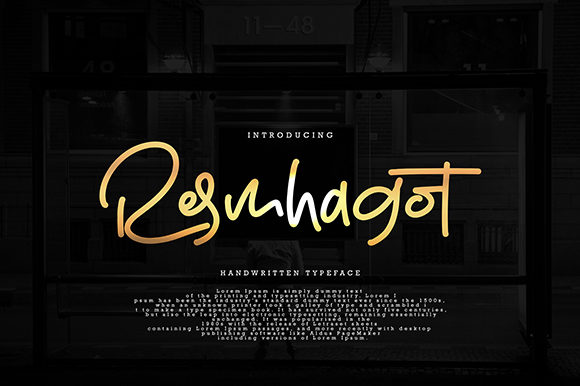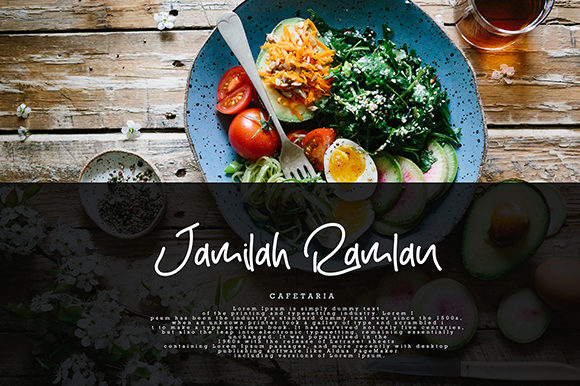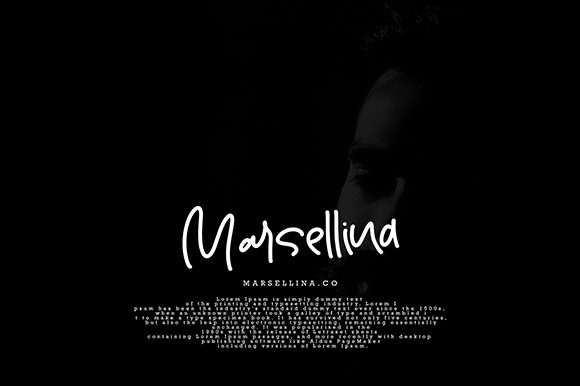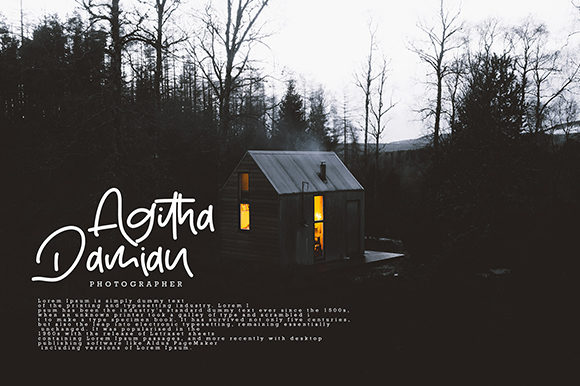
HomeScript FontsResmhagot Font Script Fonts Resmhagot Font FacebookXPinterestWhatsApp Resmhagot Font Poster 2 Resmhagot Font Poster 3 Resmhagot Font Poster 4 Resmhagot Font Poster 5 About Resmhagot Font Resmhagot is a fun and beautiful handwritten font with incredible style. Get inspired by its authentic charm. DOWNLOAD ON CREATIVE FABRICAThis font is sold and delivered by Creative Fabrica. Font Canyon may earn a commission if you buy through this link. People also explored Beautiful Dreamer Font Fivety Miles Font Tecnica Slab Family Font Magoat Font Children Font Malleo Font Magical Feather Font Sigennate Font Chypre 276 0 TagsResmhagot Font Previous articleMy Honey FontNext articleAlfrida Font LEAVE A REPLY Cancel reply Comment: Please enter your comment! Name:* Please enter your name here Email:* You have entered an incorrect email address! Please enter your email address here Website: Save my name, email, and website in this browser for the next time I comment. Personal Use Free Latifah Personal Use Free Read more about this font Mueband Personal Use Free Read more about this font BD Algebra Personal Use Free Read more about this font Authurium Personal Use Free Read more about this font BLOG Modern Sans-Serif Fonts That Brands Love in 2025 In 2025, modern sans-serif fonts remain a top choice for brands looking to project clarity, professionalism, and... Best Fonts for YouTube Videos: Make Your Thumbnails Stand Out Where to Buy American Fonts Online in 2024 How to Install and Use Fonts on Windows, macOS, and Web Projects